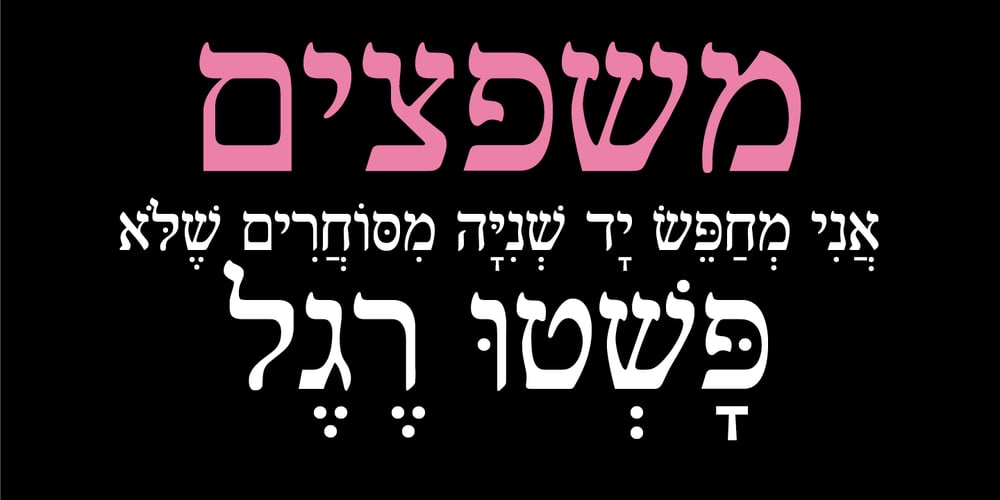
Turmus MF Font Family was designed by Zvika Rosenberg and published by Masterfont. Turmus MF contains 4 styles and family package options. This type family is a revival of the old and famous Frank Rühl from 1924. With less contrast the 2 weights make it more readable and pleasant to the eye too.OpenType ProExcellent support for Niqqud (Vowels). All marks are programmed to fit each glyph’s shape and width. OpenType Pro includes new advanced features like Dagesh Hazak, ShevaNa, Qamatz Katan, Holam Haser and wide letters.Best used with Adobe InDesign CC that support complex Hebrew text.Please check these advanced features in this link:https://tinyurl.com/ybgdsxmeFont files were re-generated to get better online screen display, as well as refined OpenType features as kerning glyph substitution. Please be aware of minor changes that might impact page layouts done with older fonts’ versions. So be careful.